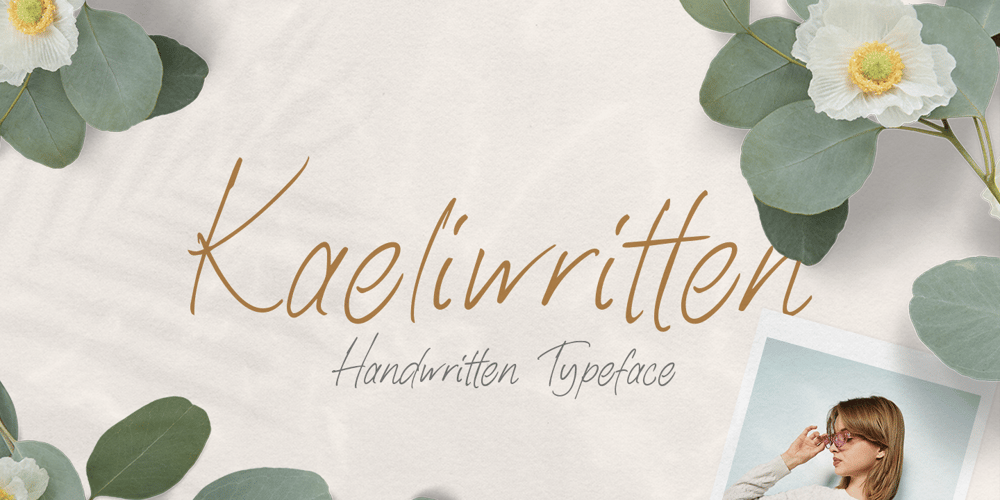
Kaeliwritten
Kaeliwritten font
Kaeliwritten Font Family was designed by Hendry Juanda and published by Letterhend. Kaeliwritten contains 1 styles and family package options. Introducing, Kaeliwritten. A natural handwritten typeface. This type of font perfectly made to be applied in various formal forms such as invitations, labels, logos, magazines, books, greeting / wedding cards, packaging, fashion, make up, stationery, novels, labels or any type of advertising purpose.Features : uppercase & lowercase numbers and punctuation multilingual alternates PUA encoded We highly recommend using a program that supports OpenType features and Glyphs panels like many of Adobe apps and Corel Draw, so you can see and access all Glyph variations. How to access opentype feature : letterhend.com/tutorials/using-opentype-feature-in-any-software/Email us to letterhend@gmail.com if you need something! Happy Designing!